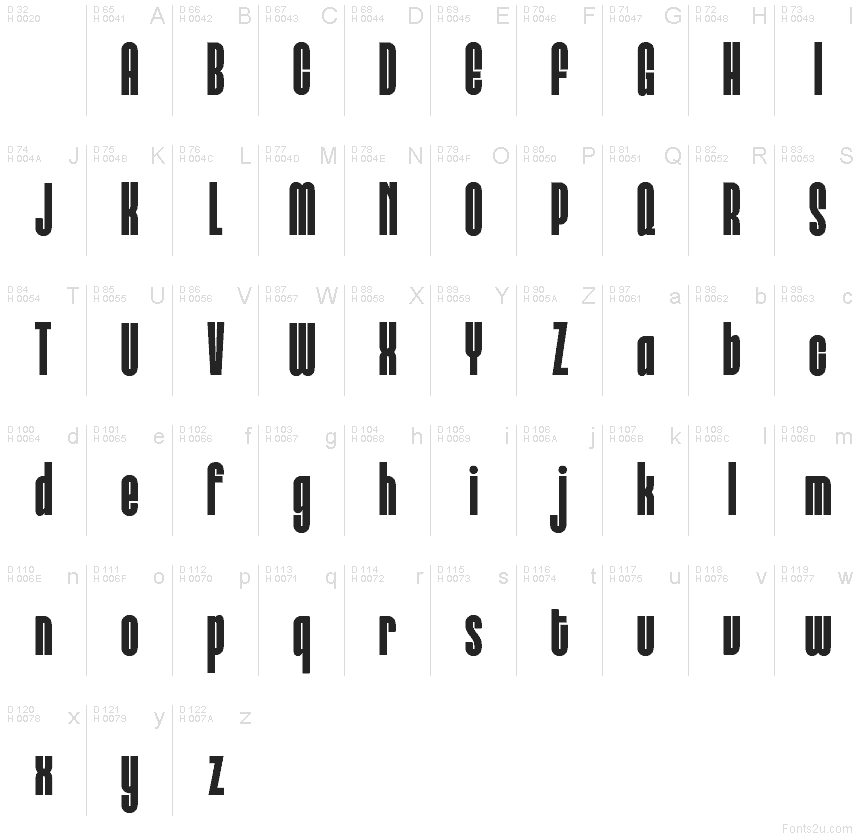
CS Edison Regular Demo
CS Edison font by Craft Supply Co. is a free sans serif, condensed font which has an industrial appearance influenced by disjointed structures and geometric forms. Although it has a retro inspiration, this font is suitable for contemporary applications in modern technology branding tasks.
Use CS Edison in logo designs to give your brand a retrofuturistic theme which was present in earlier technological periods. Cover pages, book layouts, pamphlets, social media banners text, flyer design and website headers are all great ideas for using this typeface professionally or personally!